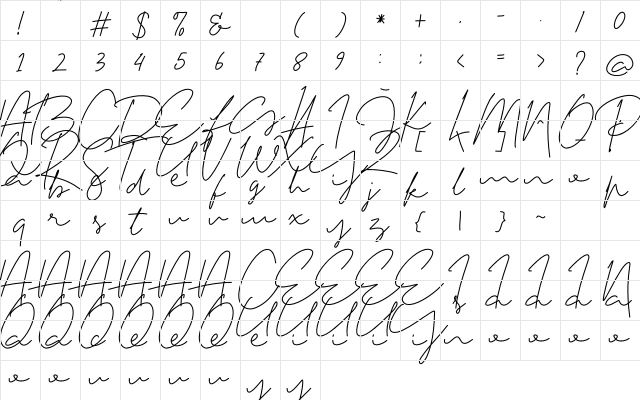
Tiffany Script Regular
| Foundry | Ardyanatypes Studio |
| Designer | Ardyanatypes |
Design Context for Tiffany Script Typeface
Tiffany Script brings a calligraphic fluidity to the page — its connecting strokes and expressive curves give it an unmistakably human quality.